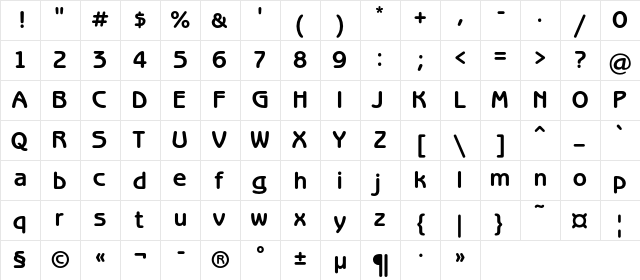
BenguiatGothicC Bold
BenguiatGothicC Bold Font Preview
BenguiatGothicC Bold
Design Context for BenguiatGothicC Typeface
BenguiatGothicC takes a clean, functional approach — its unadorned letterforms prioritise legibility and work reliably across screen and print environments. The heavy weight commands attention and anchors typographic hierarchies.
Well-suited to navigation labels, product packaging, and anywhere legibility at scale is essential.
Font Pairing: Use BenguiatGothicC for headlines alongside a lighter-weight sans or serif for body copy to establish clear visual hierarchy.
Pro Tip: Use BenguiatGothicC for UI labels, navigation, and short-form body copy where clean legibility is the priority.